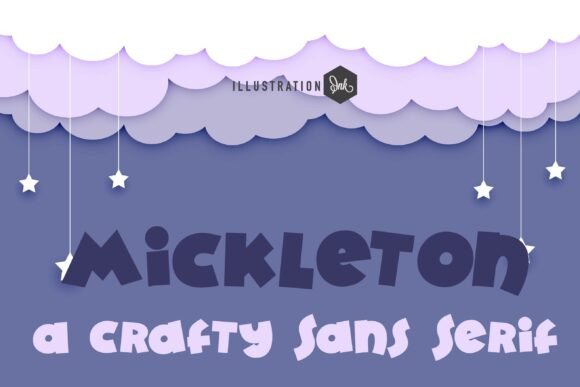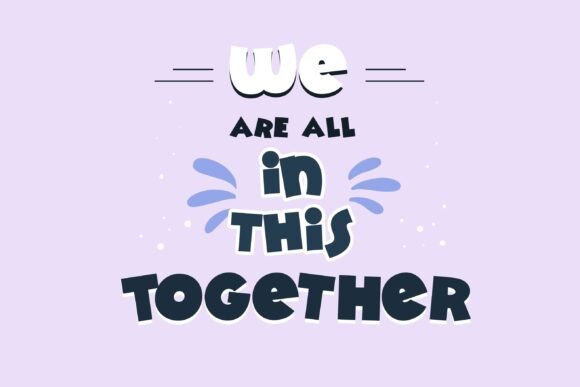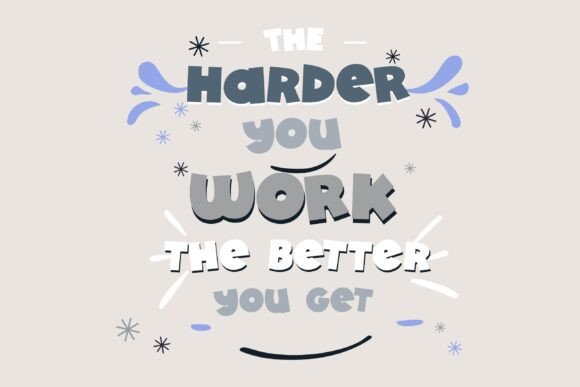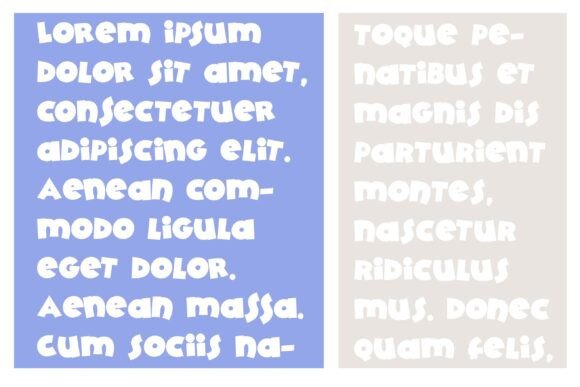
Mickleton Font
About the Mickleton Font
Welcome to the world of Mickleton Font, a typeface that will inspire your next great project. This hand-crafted font is a whimsical sans serif with chunky, thick, whimsical, lettering.
Mickleton’s playful personality makes it ideal for headlines, short text blocks on posters or packaging, and branding elements where a friendly, approachable feel is desired. It’s less suitable for body text or UI, where readability over extended lengths is crucial; its chunky forms can hinder comprehension in paragraphs.
Pairing Mickleton effectively requires considering its whimsical nature. A clean sans-serif like Open Sans or a geometric sans-serif like Montserrat would provide a strong contrast and enhance legibility in supporting text. For a more playful approach, a script font with a similar weight could be considered, though careful consideration of kerning would be essential.
The overall effect of Mickleton is bold and friendly, making it a strong choice for brands targeting a younger demographic or conveying a sense of fun and approachability. Avoid using it where sophistication or a serious tone is paramount.
Mickleton Font Usage Examples
Mickleton Font Example